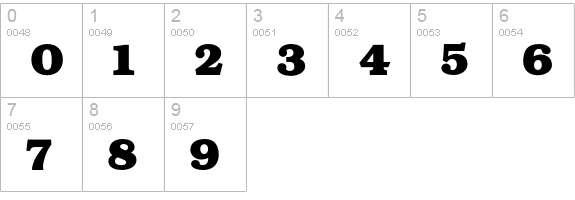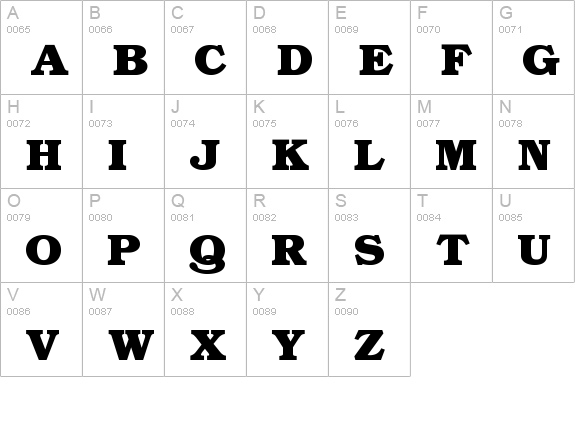
BookmanBold Font Details
BookmanBold is a classic and timeless font that exudes elegance and sophistication. Its bold and sturdy letterforms make it perfect for headlines, titles, and branding. With its strong presence and readability, BookmanBold commands attention and is sure to make a lasting impression. The versatility of this font allows it to be used in a variety of design projects, from print materials to digital media. Best of all, BookmanBold is available for free download at FontsMarket.com, making it easily accessible for designers and creatives looking to elevate their work with a touch of sophistication. Whether you're working on a logo, poster, website, or any other design project, BookmanBold is a reliable choice that will help you achieve a polished and professional look. Download BookmanBold today and add a touch of timeless style to your designs.